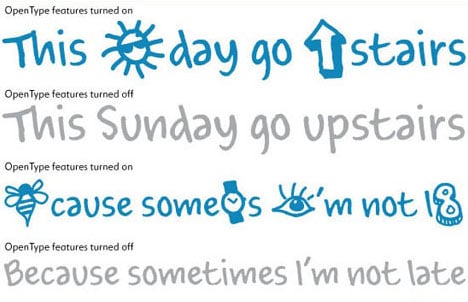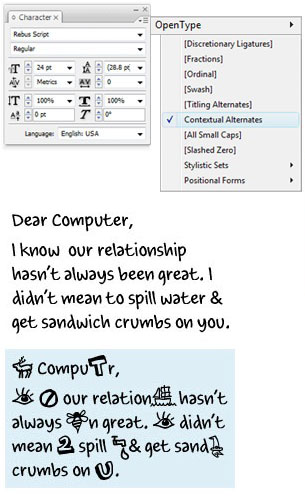
Rebus Script Is a Puzzling Font -- Literally
Ascender Corp has released a new OpenType font that uses the Contextual Alternate feature to create rebus puzzles by automatically replacing certain words or syllables with pictures. Rebus Script requires an OpenType-savvy application.
Ascender Corporation, a leading provider of advanced font products, today announced its newest OpenType font called Rebus Script to showcase the advanced features available in OpenType fonts for creative applications. Rebus Script is a handwriting style script font that includes a set of pictorial symbols that can automatically replace certain words and syllables. Rebus Script uses the Contextual Alternate feature that is available in many OpenType-savvy applications including Adobe InDesign, QuarkXPress and Mellel.
The Rebus Script font was created by Ascender's Terrance Weinzierl after much research into the art of rebuses – representations of words and phrases which are substituted with pictures. The Rebus Script font can be used to create messages, riddles and puzzles that inspire, amuse and challenge readers to decode the pictures and the words or syllables they represent.
To use Rebus Script you simply type a word like "sun" or "son" and those letters will automatically be replaced by a picture of the sun. There are over 70 pictorial symbols in Rebus Script that make up the "vocabulary" for automatic substitution based on over 300 different syllable/word combinations in the English language. The vocabulary was developed to offer a wide range of creative possibilities.
To create Rebus Script, Terrance started with the Louisville Script™ font designed by Ascender's Steve Matteson. This informal handwriting-style script font was chosen because it offers a fun, energetic personality that matches the casual line drawing style which Terrance desired. Terrance then developed a vocabulary sheet consisting of common words, syllables and emoticons, and then drew the corresponding illustrations. Next, he programmed all the pictures using the Contextual Alternatives feature available in OpenType and TrueType fonts. Special attention was paid to various case variations to recognize letters written in all lower case, all upper case and titling case.
One of the sources of inspiration for Rebus Script was "Gramp 'N Grams" – a product originally created by Philip Davis in the mid-1980s. This set of rebus picture stickers and matching stationery was targeted at grandparents to write rebus-style letters to their grandchildren. Thanks to the advances in font technology and computer publishing software, Mr. Davis' dream of a rebus font is finally a reality! Rebus Script is a fun, lively font that can provide a wide variety of entertaining uses. The result is a youthful expression of text which is entertaining to decipher. It is perfect for casual correspondence, advertising and web graphics and can be used to embellish greeting cards, scrapbooks, menus, flyers, presentations and advertisements.